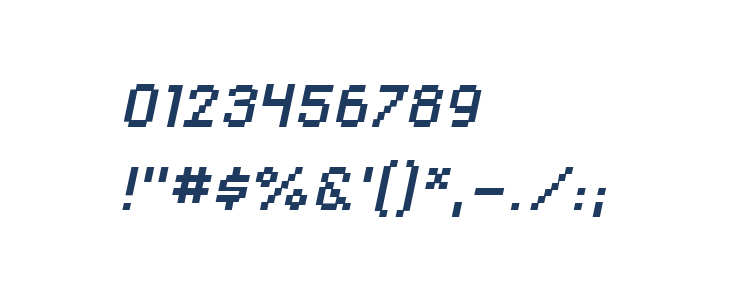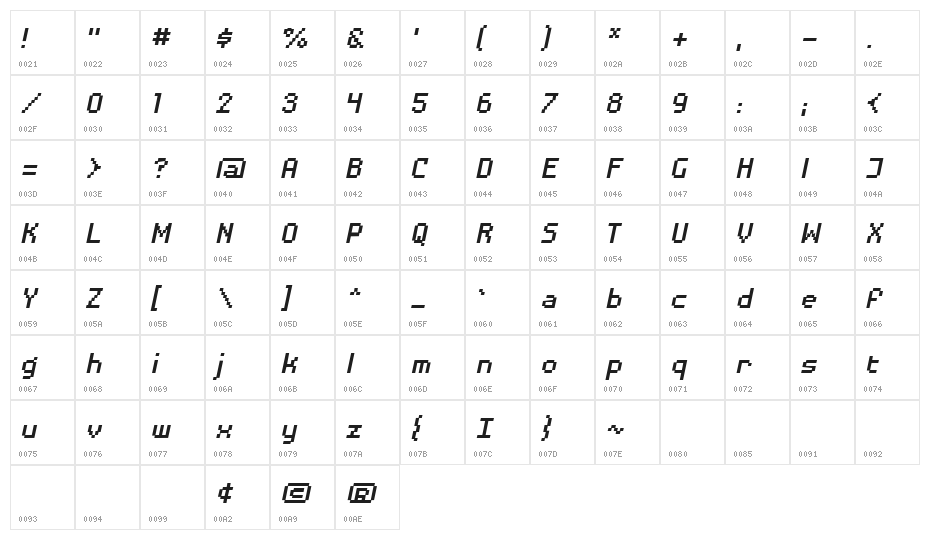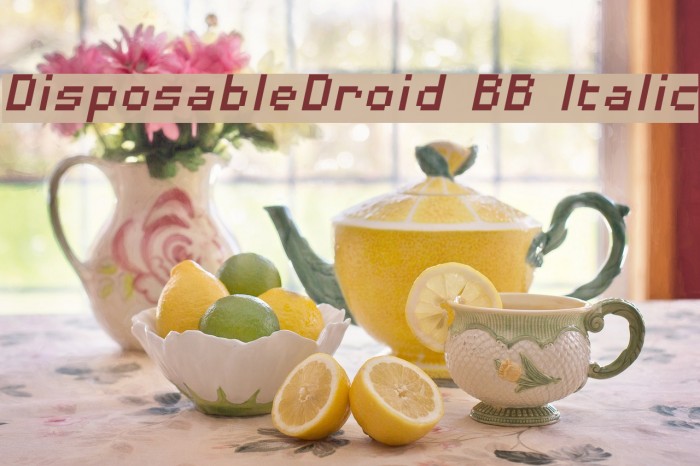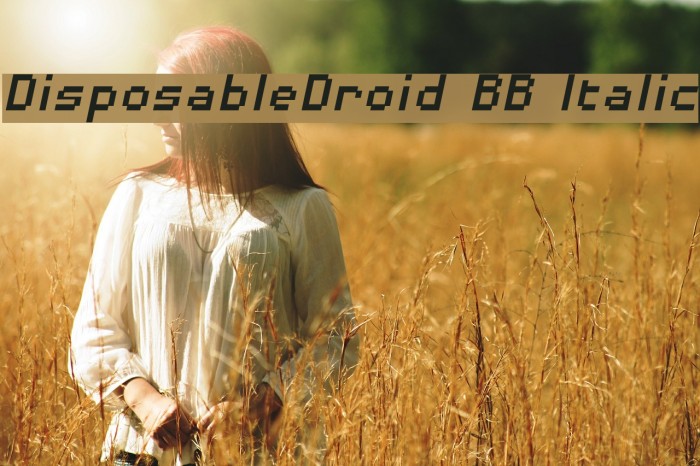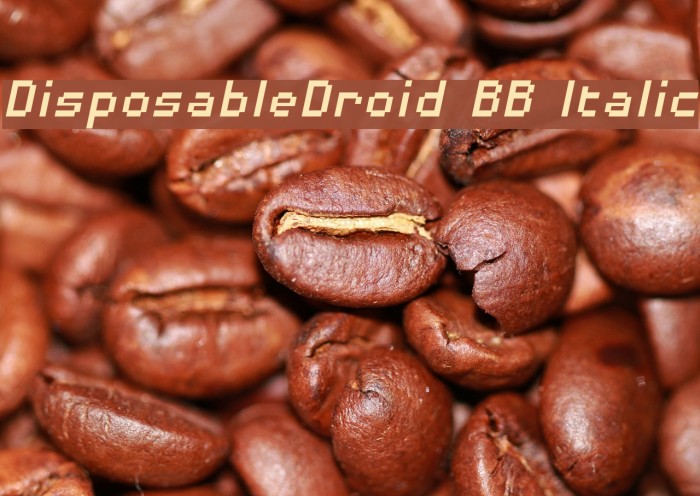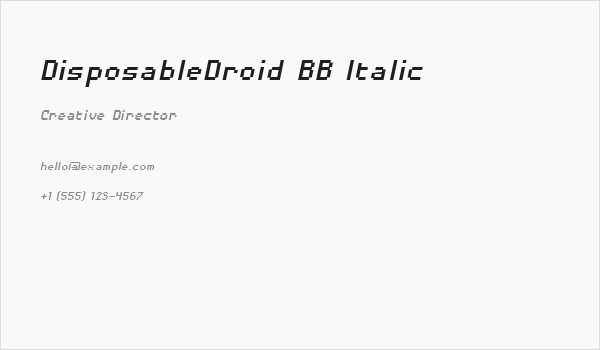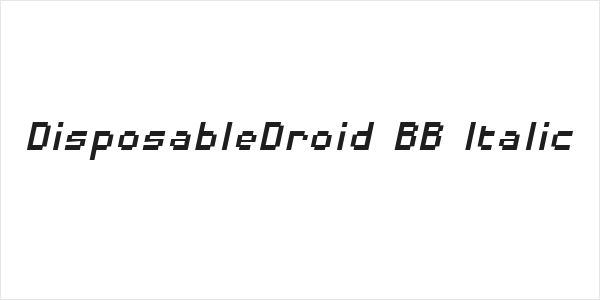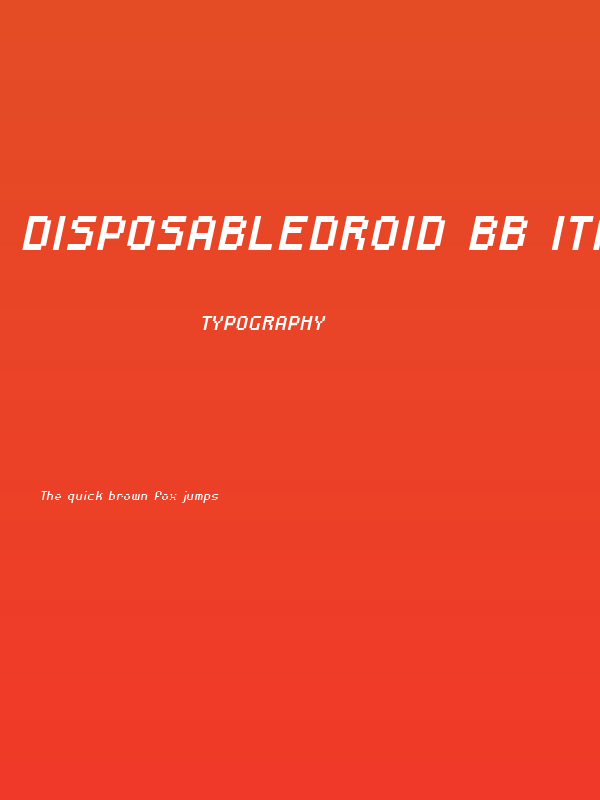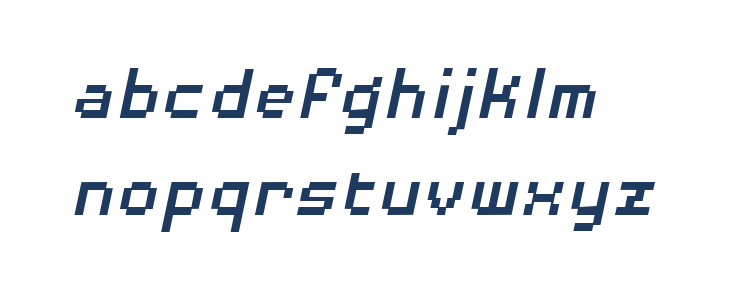
DisposableDroid BB Italic Font
DisposableDroid BB Italic Description
This font features a distinct pixelated style reminiscent of early digital displays and retro video games. Each character is composed of blocky, square-like shapes that give it a unique, tech-inspired appearance. The italic slant adds a dynamic and forward-moving feel, enhancing its futuristic aesthetic. The uppercase and lowercase letters maintain a consistent design, ensuring readability while preserving the font's distinctive character. Numbers and special characters are crafted with the same pixelated precision, making them ideal for digital-themed projects. The overall design is bold and eye-catching, perfect for making a statement.
| Overall Style | Retro, Futuristic |
| Use Case | Headlines, Logos, Digital Art |
| Proposed Projects | Ideal for video game design, tech-themed posters, digital art projects, and retro-style branding. |